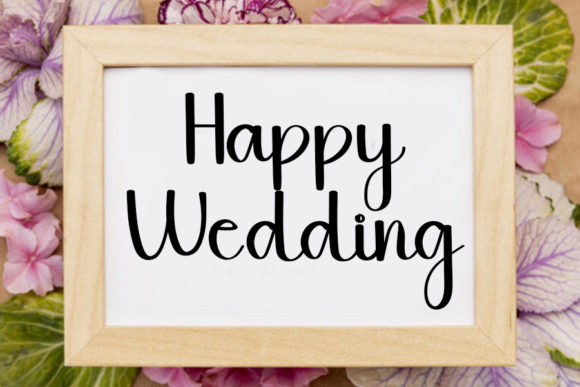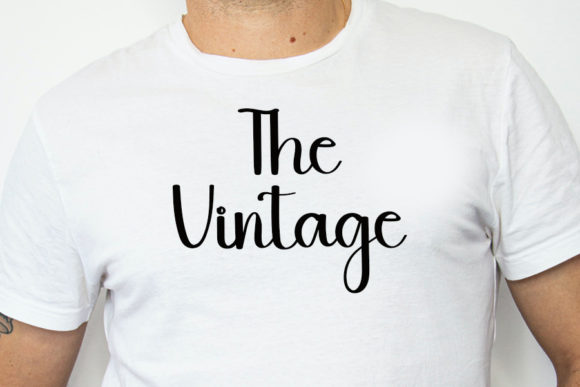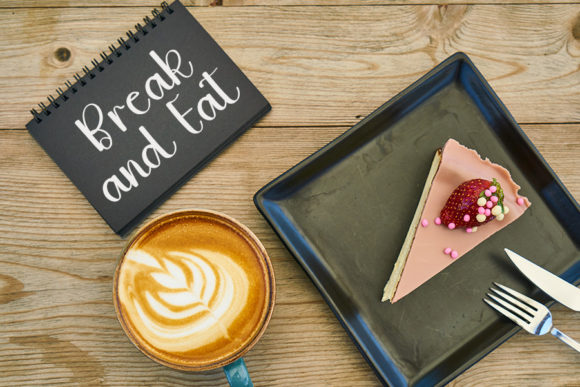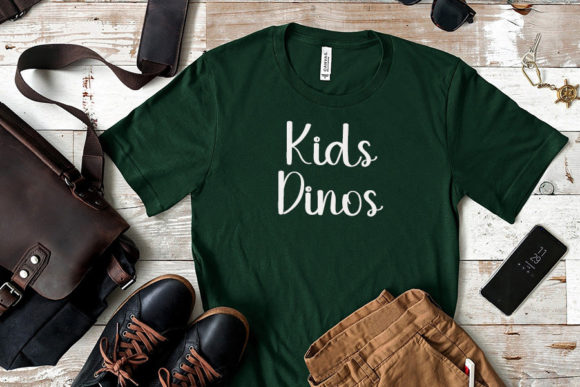
Introduction to Maybe Heartlove Font
Maybe Heartlove is a cute and charming handwritten font.
Not too thin and not too thick, balanced and varied, this font was designed to enhance the beauty of all your projects .
Key Features of Maybe Heartlove Font